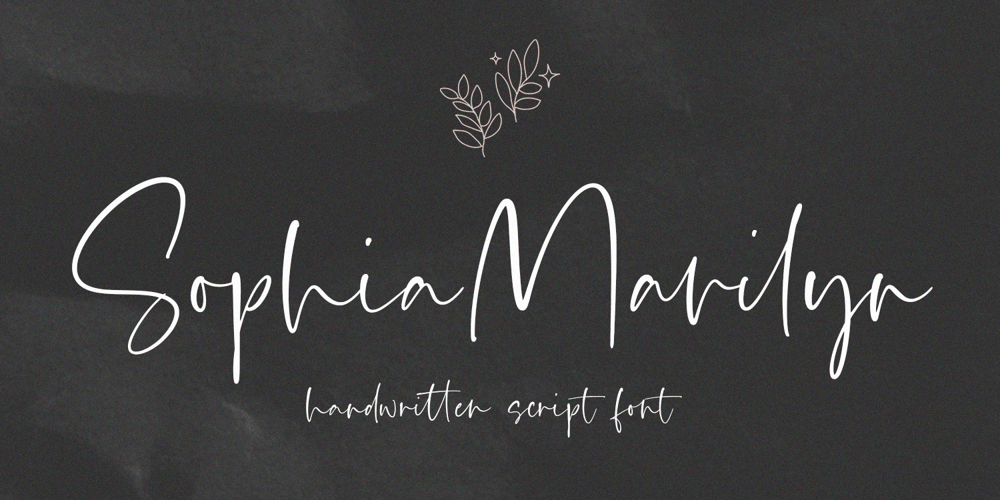
Sophia Marilyn
Sophia Marilyn font
Sophia Marilyn Font Family was designed by Wara Sigit Tri Pamungkas and published by Timurtype. Sophia Marilyn contains 1 styles and family package options. Introducing by Timur typeProudly Present, Sophia Marilyn A Handwritten Script FontSophia Marilyn is perfect for product packaging, branding project, megazine, social media, wedding, or just used to express words above the background.This Sophia Marilyn font includes:Sophia Marilyn multilingual support.Embelish your designs with our original fonts.Enjoy the font,Thank you!